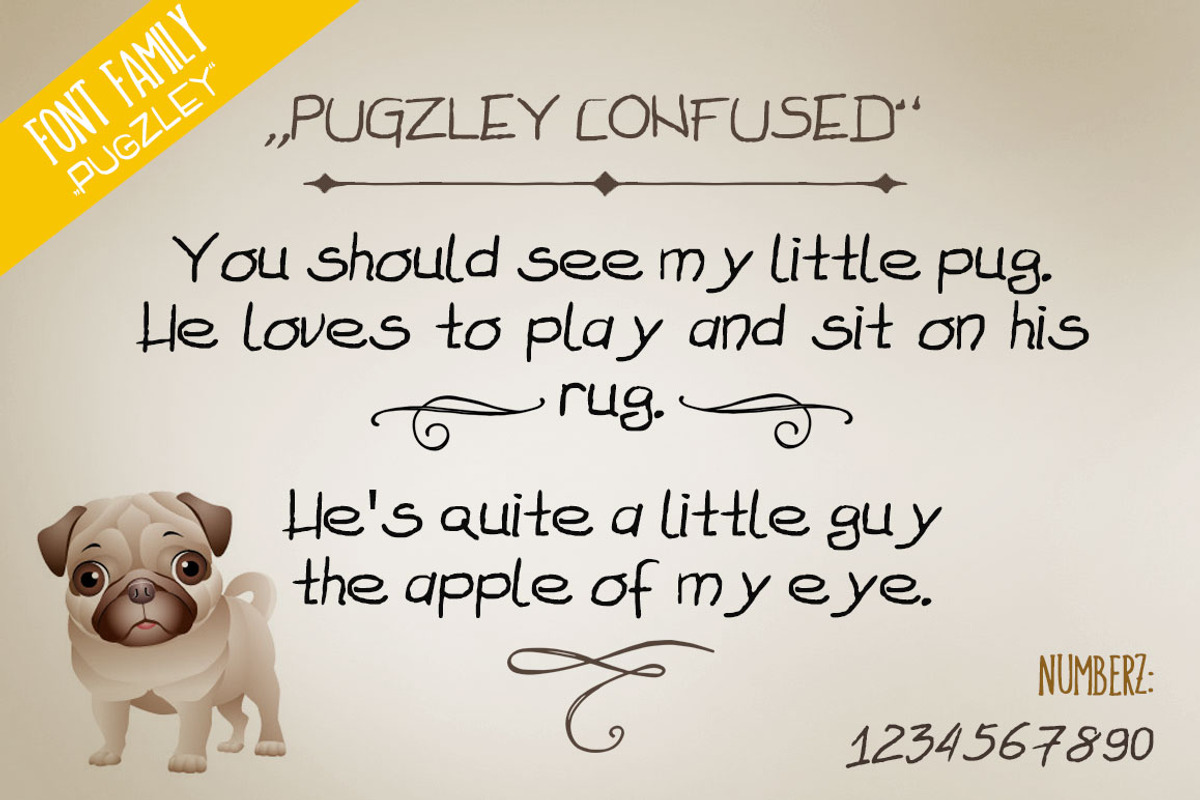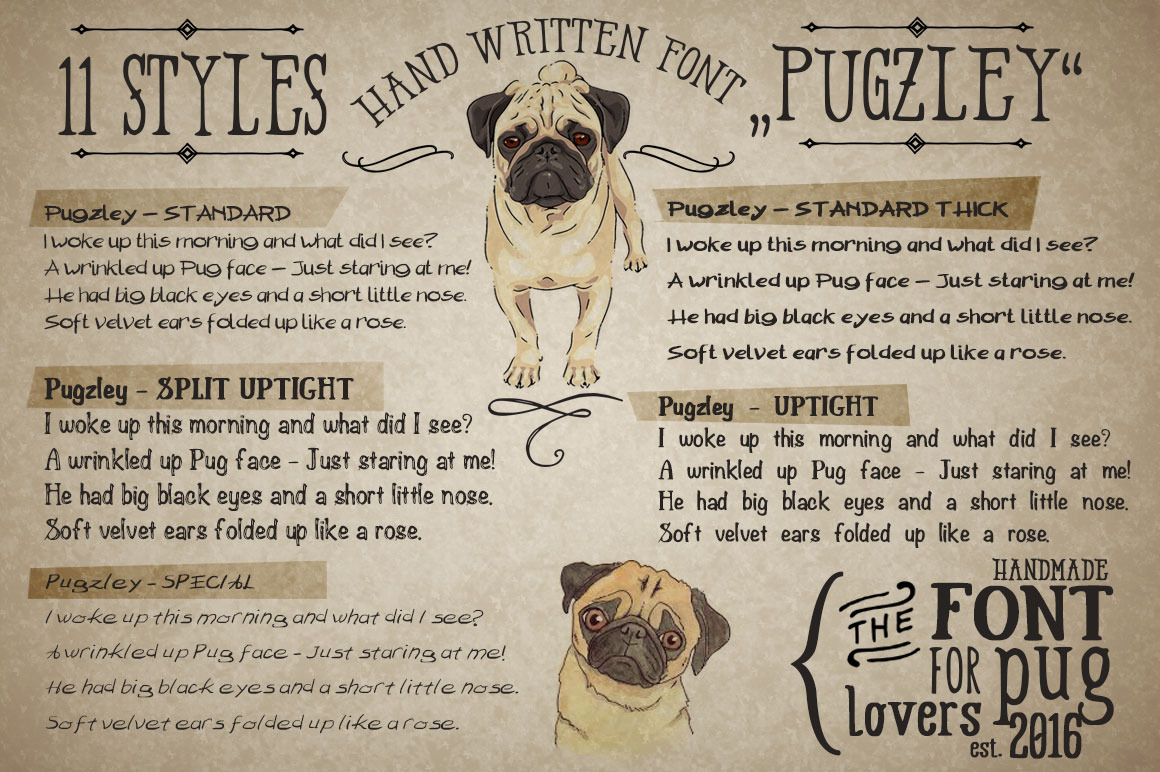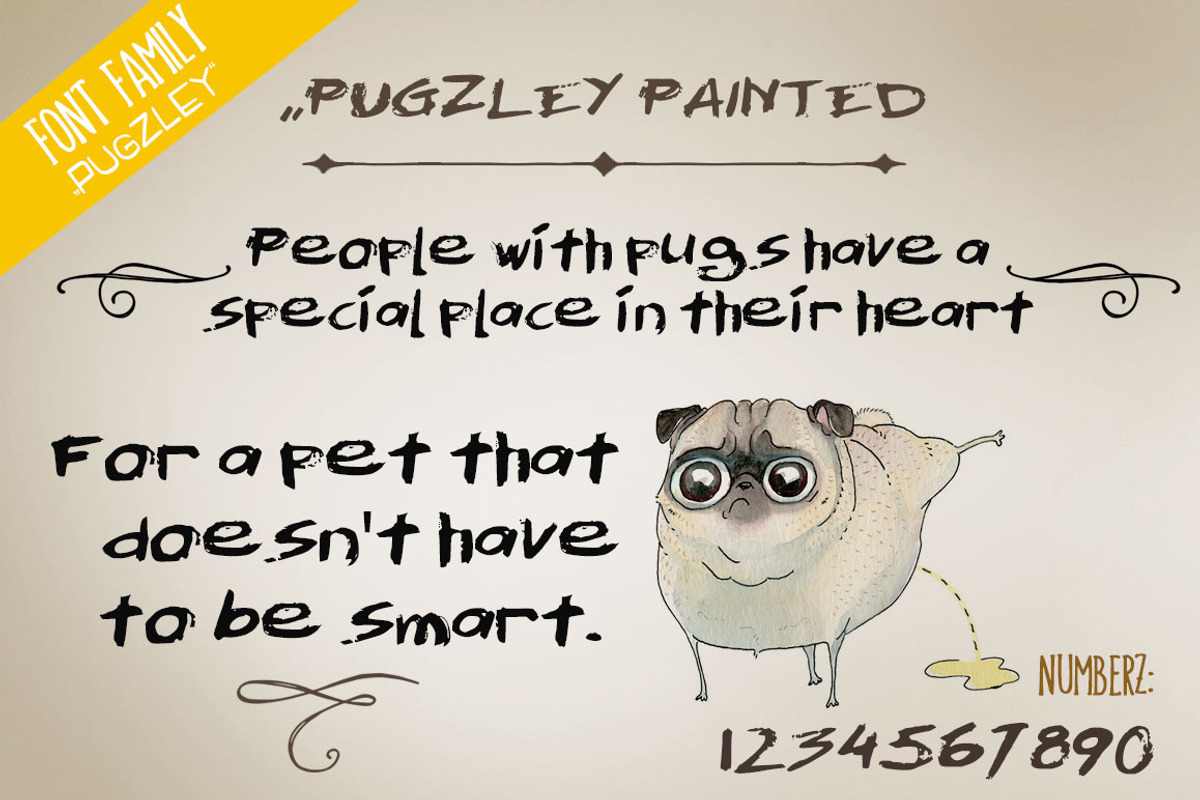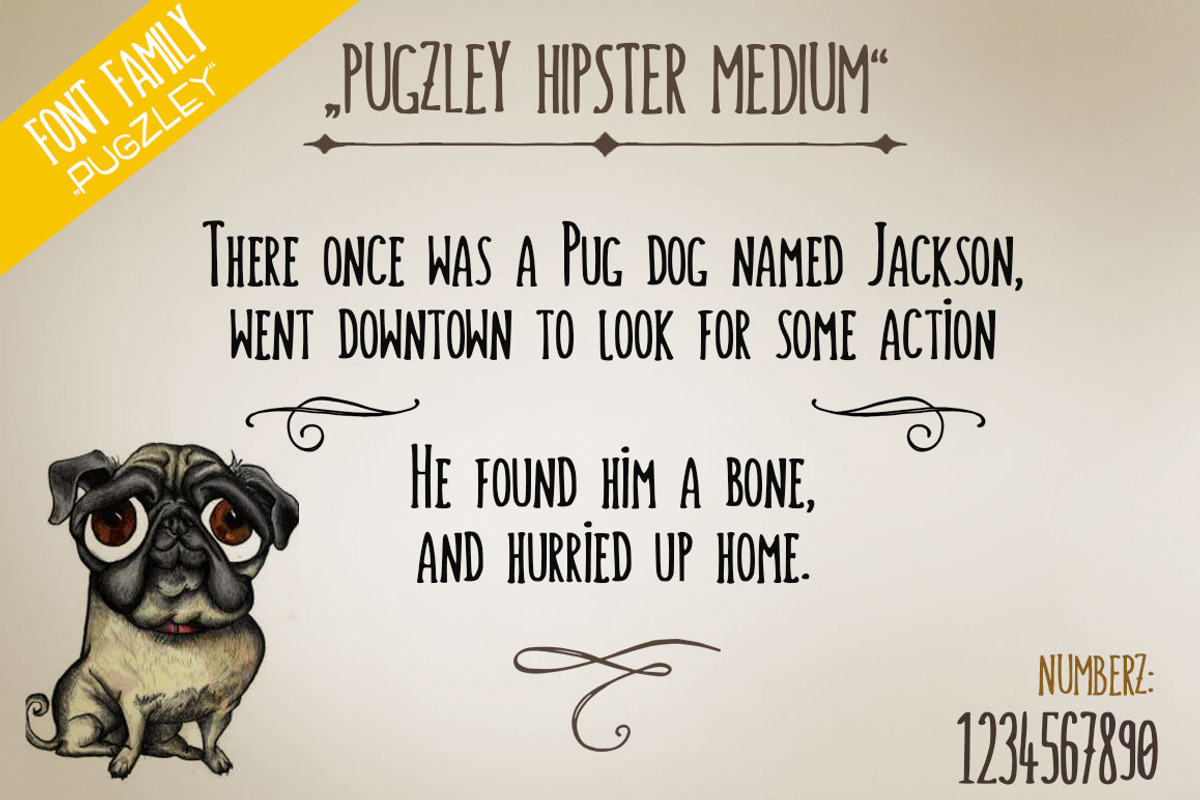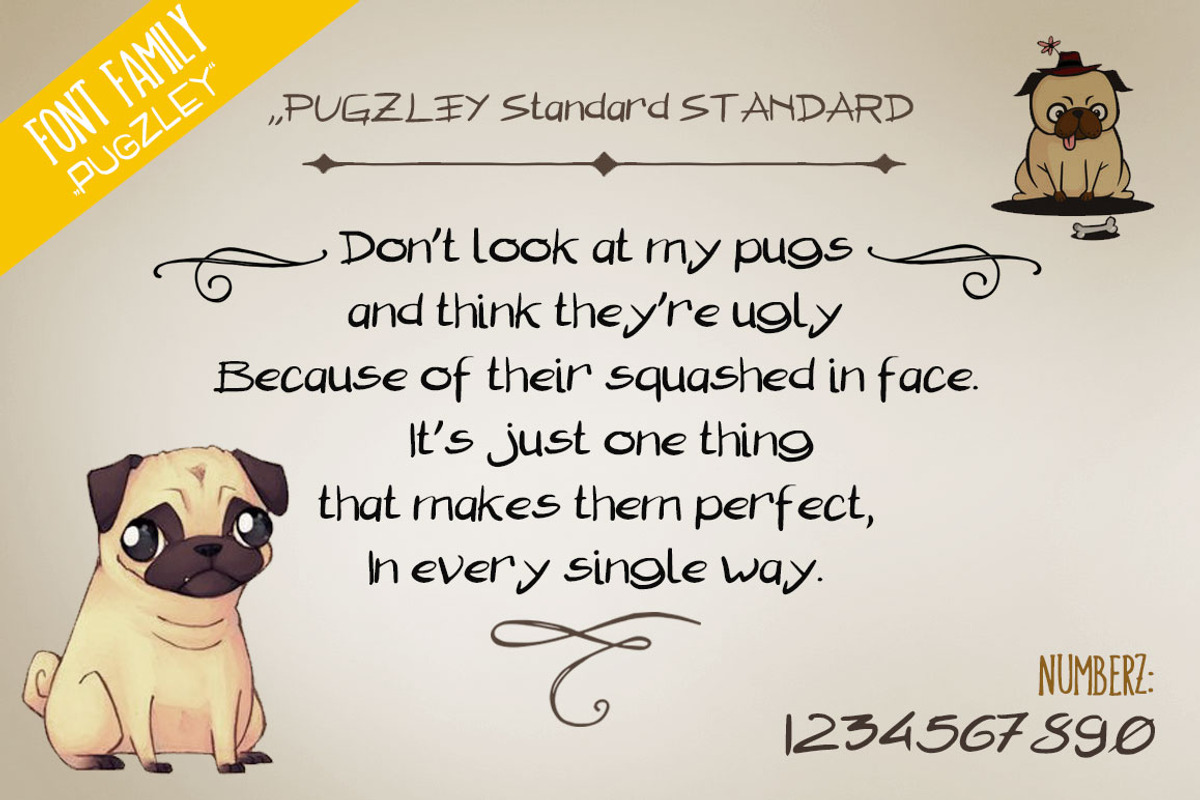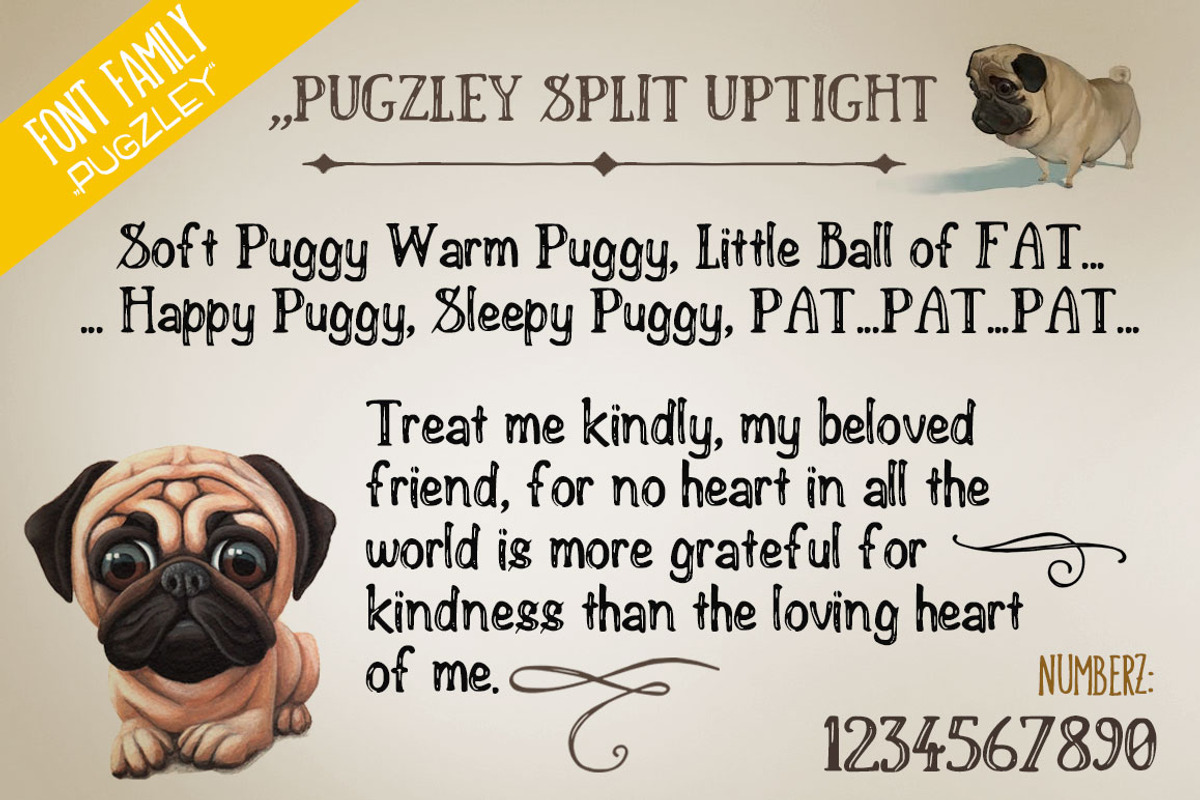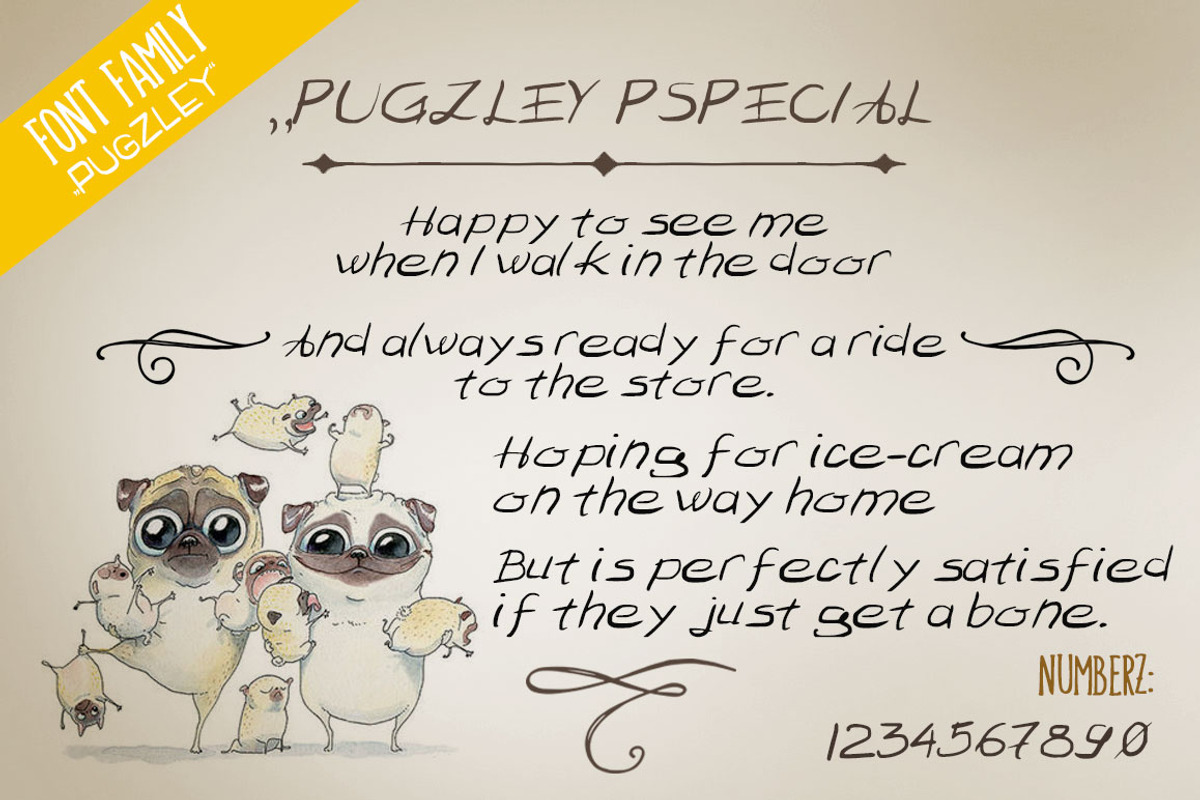
11 Handmade Font Family "Pugzley"
This nicely organized 11 hand-made font collection is inspired and named by my furry friend Pugzley. Ever since I've made these fonts, I don't really use any other hand made ones, since there's a nice variety of styles and sizes. There are .ttf and .otf fonts and the web font kit is also included.